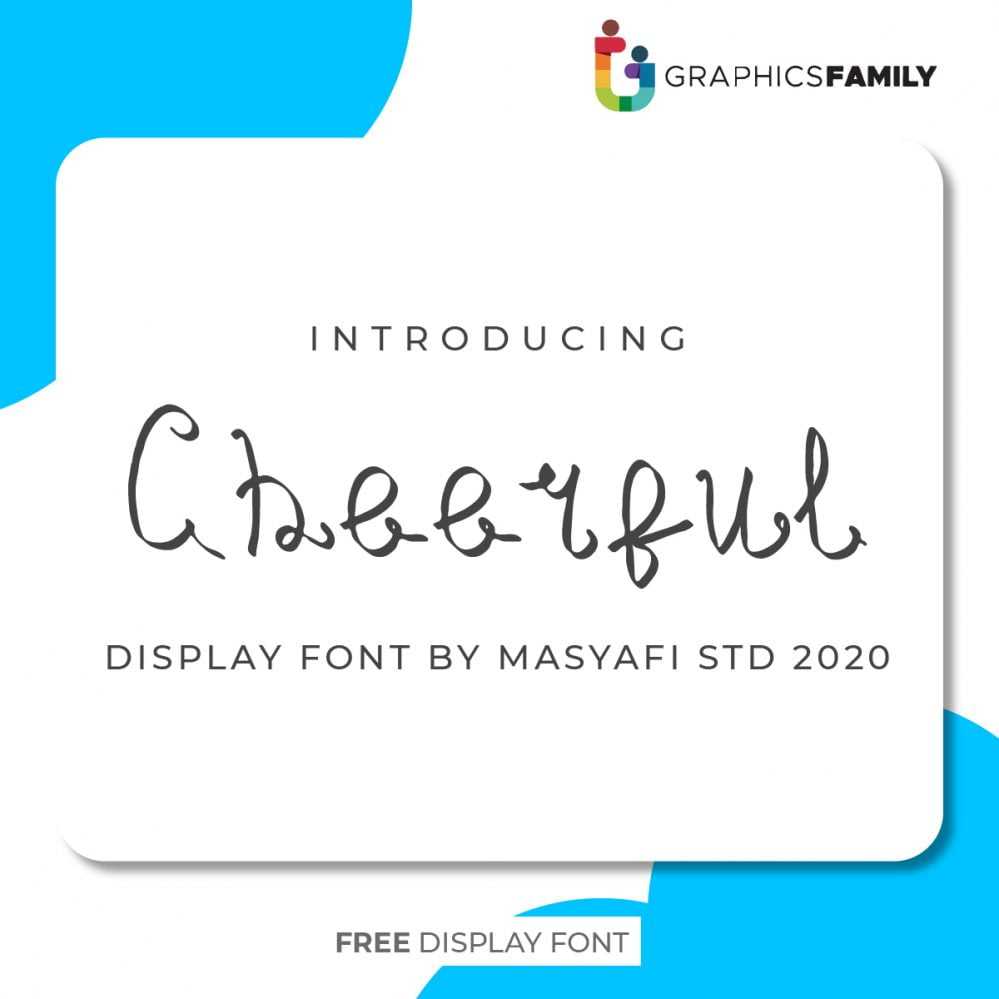
Cheerful Year Font – Download Grátis
Cheerful Year Font Cheerful Year is a delicate, unique and dainty handwritten font. It can be used for various purposes such as logos, wedding invitations, headings, t-shirts, letterhead, signage, labels, news, posters, badges and so much more.